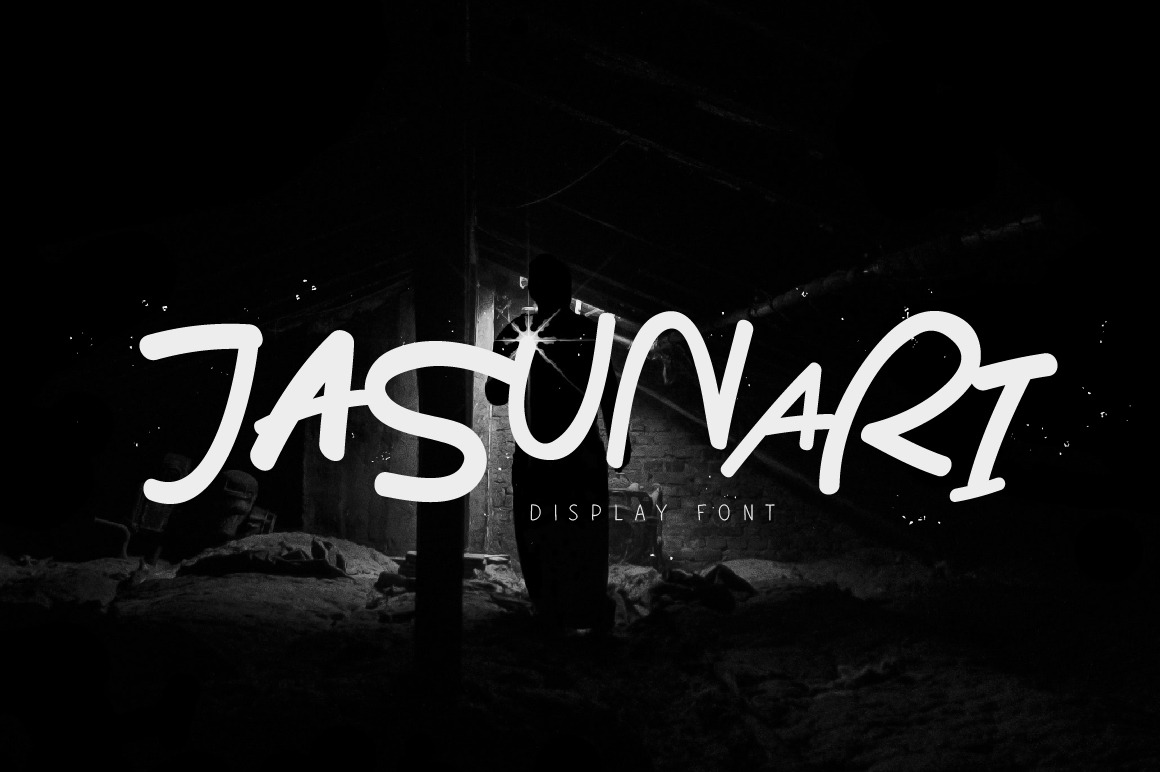
Jasunari Display Font
Jasunari is a brush font. It comes with all caps uppercase and lowercase characters, large set of punctuation glyphs, numerals, cyrillic characters and multilingual support. Ideal for logos, product packaging, t-shirt, handwritten quotes and etc.